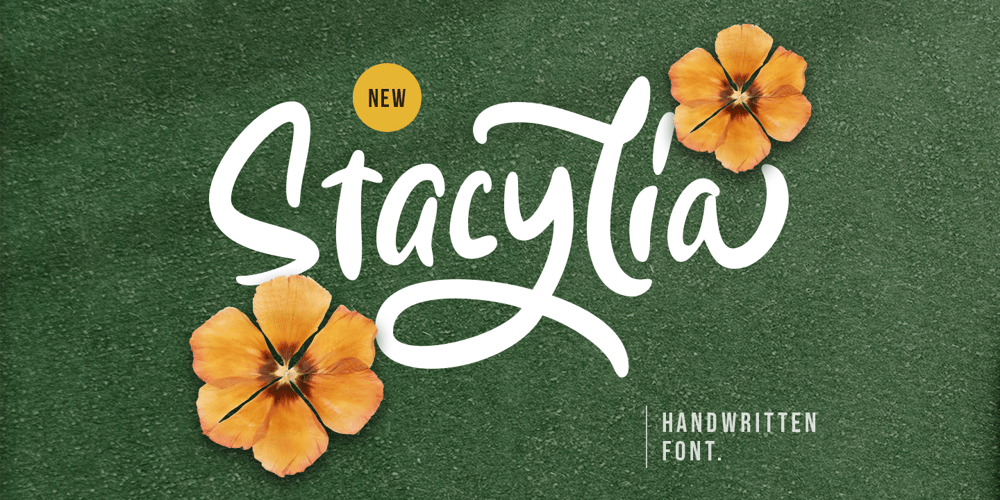
Stacylia Font Family was designed by Hendry Juanda and published by Letterhend. Stacylia contains 1 styles and family package options. Introducing, Stacylia – a bold handwritten script typeface. This type of font perfectly made to be applied especially in logo, and the other various formal forms such as invitations, labels, logos, magazines, books, greeting / wedding cards, packaging, fashion, make up, stationery, novels, labels or any type of advertising purpose.Features : uppercase & lowercase numbers and punctuation multilingual alternates and ligatures PUA encoded We highly recommend using a program that supports OpenType features and Glyphs panels like many of Adobe apps and Corel Draw, so you can see and access all Glyph variations.